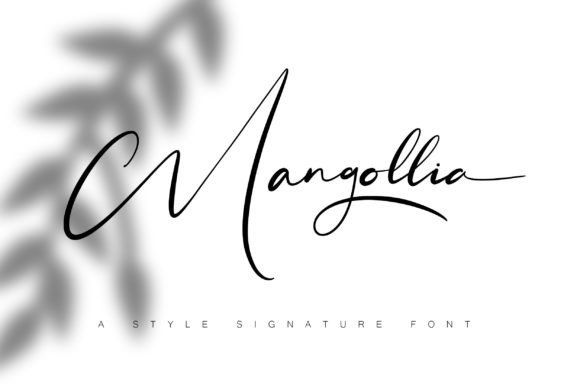
Prepare yourself to step into a world illuminated by incandescent artistry with Mangollia Font, the master of luminescent charm. This enchanting script font will transform your design projects into radiant masterpieces that dazzle like a constellation of stars against the velvety canvas of the night sky.
Mangollia's captivating essence is meticulously crafted to evoke the essence of ethereal elegance, leaving a trail of allure in its wake. Its graceful strokes and hypnotic curves dance across the page like moonbeams, beckoning your audience to dive into a spellbinding realm of visual enchantment.
Unleash your creativity and let Mangollia ignite your designs with its luminous aura. Whether you're crafting radiant logos, mesmerizing posters, or enthralling social media graphics, this font will elevate your creations to stratospheric heights.
With Mangollia, you'll discover a treasure trove of typographic wonders that will exhilarate your senses. Explore a vast array of ligatures, alternates, and ornaments, each meticulously designed to add depth and dimension to your designs.
Immerse yourself in the kaleidoscope of brilliance that Mangollia offers. Witness how its incandescent glow transforms ordinary words into radiant works of art. This font is a symphony of light that will orchestrate an unforgettable visual experience for your audience.
Embrace the allure of Mangollia and embark on an artistic odyssey where every design project becomes a mesmerizing masterpiece. Let your creativity soar on the wings of this celestial font and leave an indelible imprint on the hearts and minds of your audience.